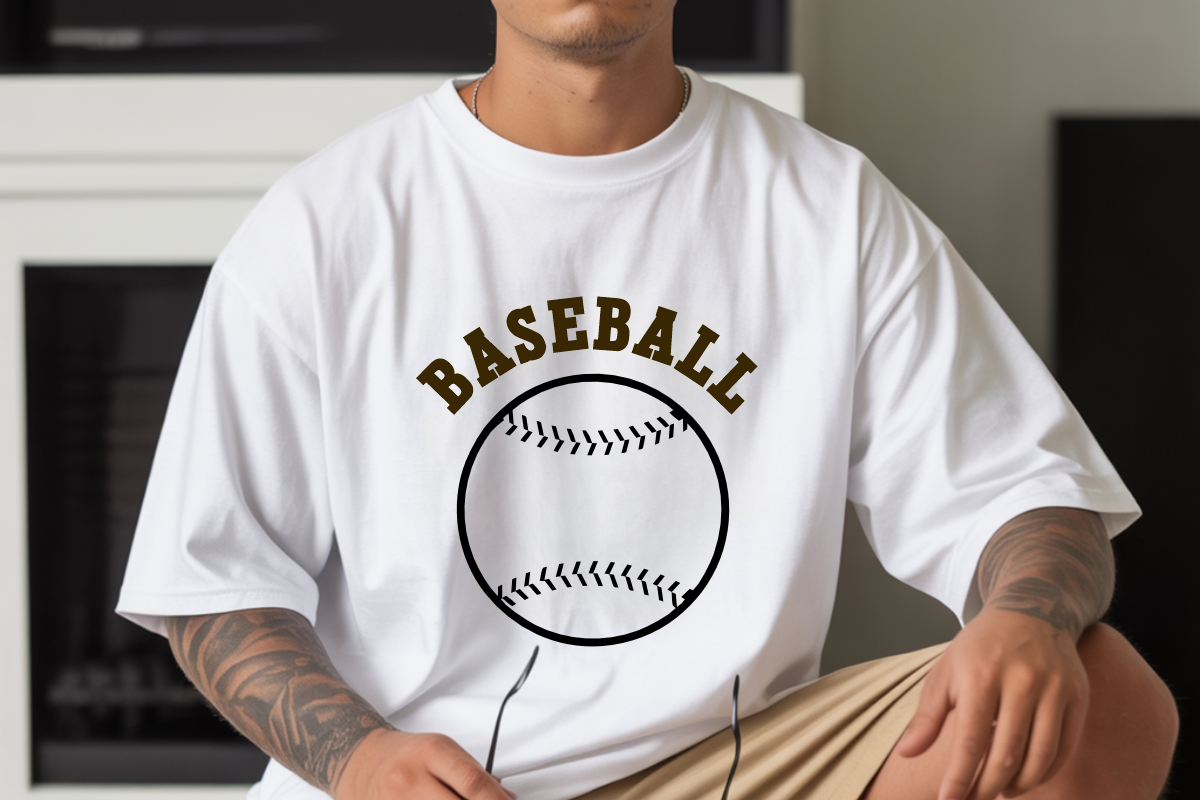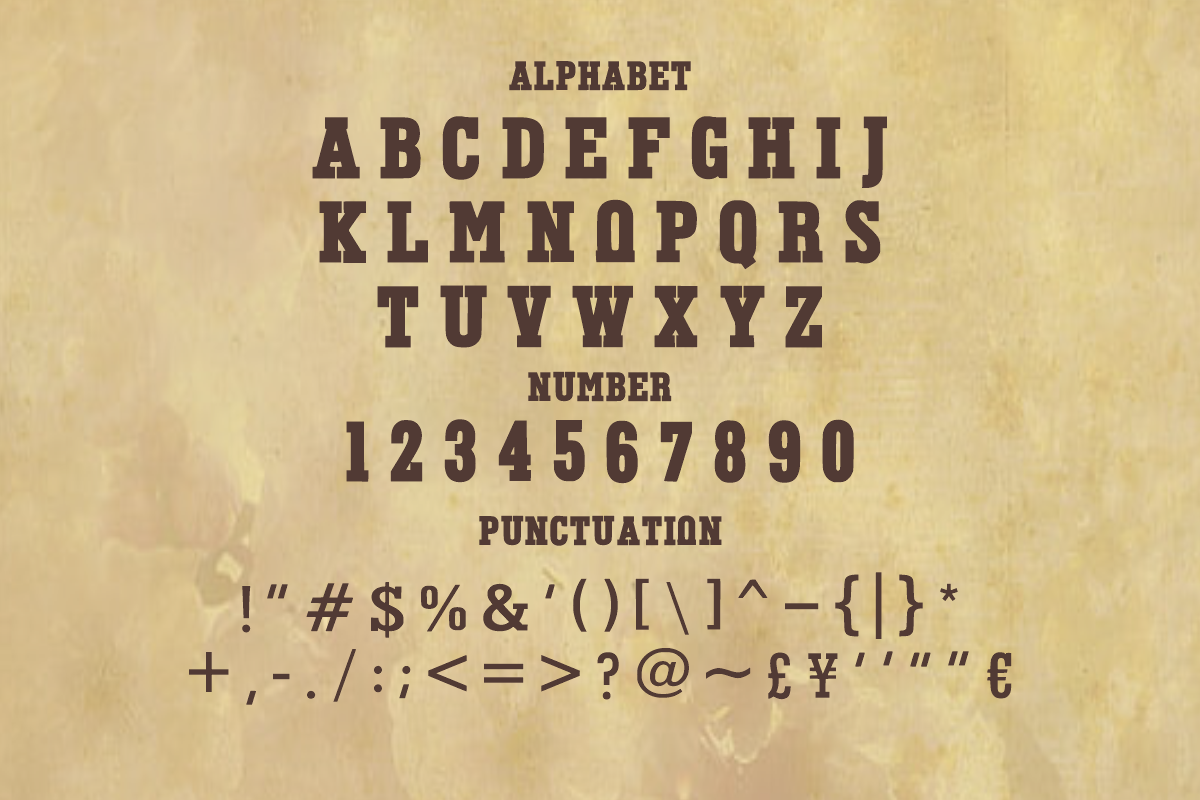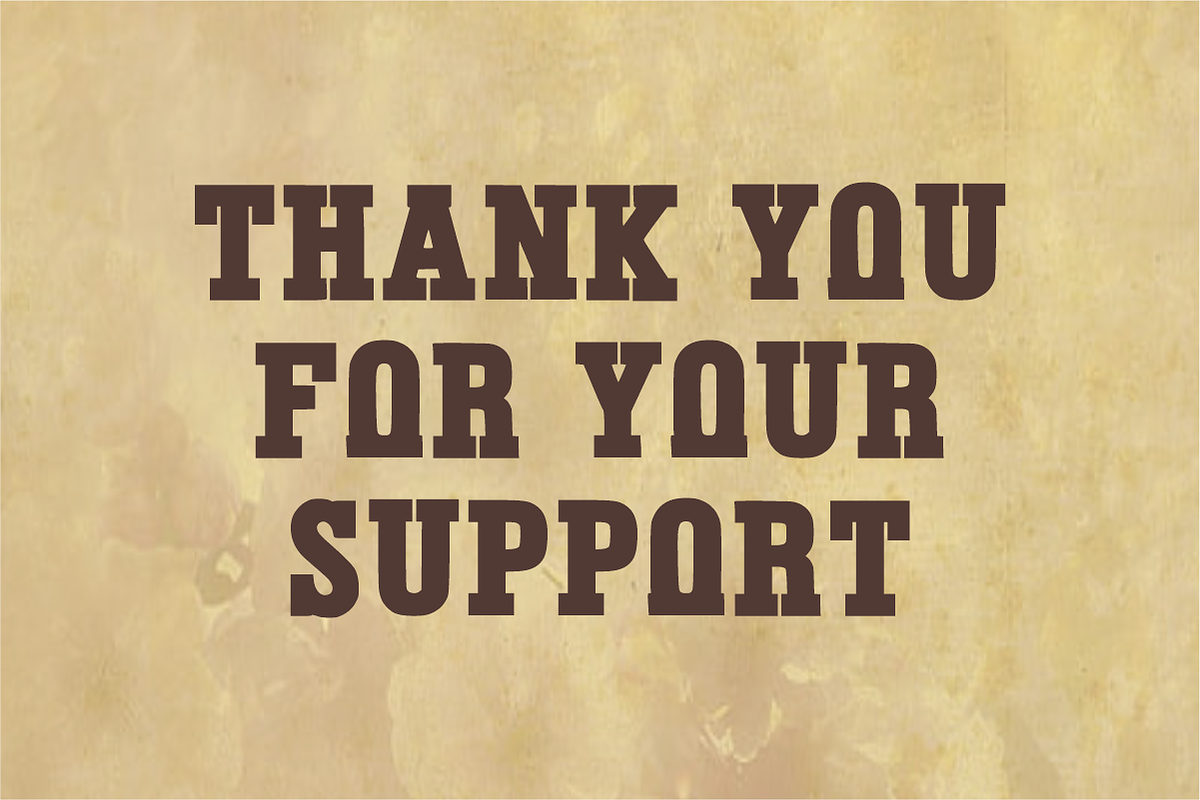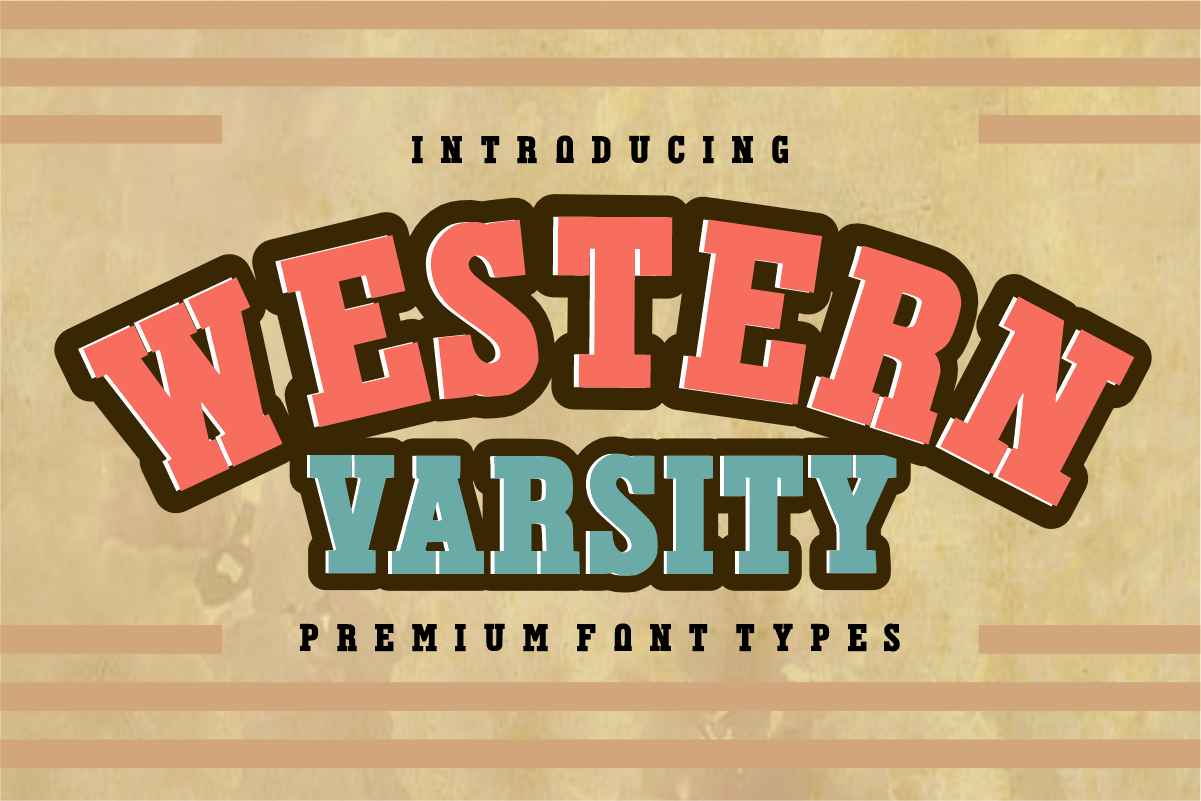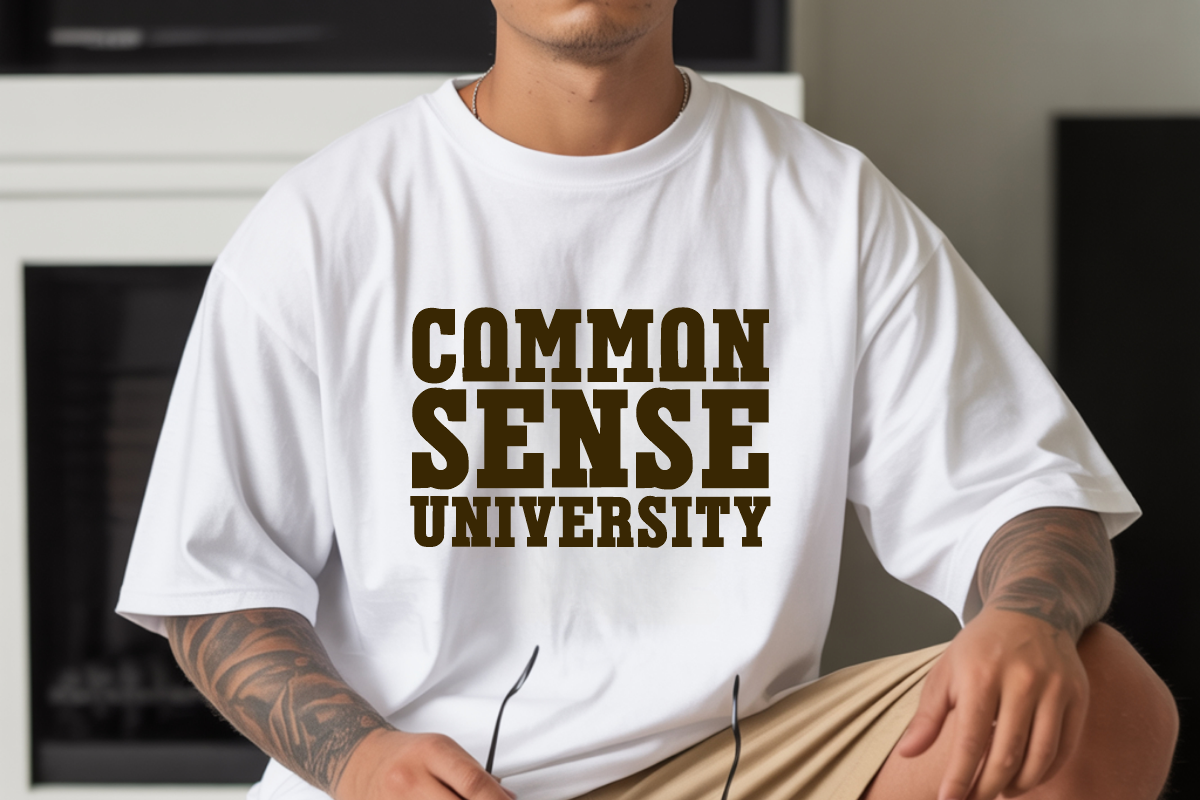
Western Varsity Font - Vintage Style
🤠 Howdy, Creators! Meet Western Varsity - The Ultimate Retro Sports & Cowboy Font! 🏈
Bring a bold, energetic, and nostalgic vibe to your designs with Western Varsity. This premium display font perfectly blends the rugged charm of the classic Wild West with the timeless, clean structure of traditional collegiate athletic lettering. It’s bold, it’s punchy, and it’s engineered to stand out!
Whether you are designing for a local sports team, creating trendy retro apparel, or crafting unique merchandise, Western Varsity gives your text that instant premium, high-impact look.
_ 🔠 _\Complete Uppercase Letters (A-Z)\\* – Clean, bold, and impactful block style.
_ 🔢 _\Numbers (0-9)\\* – Perfect for sports jerseys, years, and racing numbers.
_ 🔣 _\Simple Symbols & Punctuation\\* – Essential characters to complete your layouts.
\* 👕 Retro & Vintage T-Shirt Designs / Streetwear
\* 🧢 Collegiate & Varsity Apparel / Sportswear
\* 🤠 Rodeo, Country, & Western-Themed Branding
\* 🎨 Cricut & Silhouette Craft Projects (Perfect for SVG creators!)
\* 🏆 Logos, Posters, Flyers, Stickers, and Social Media Graphics